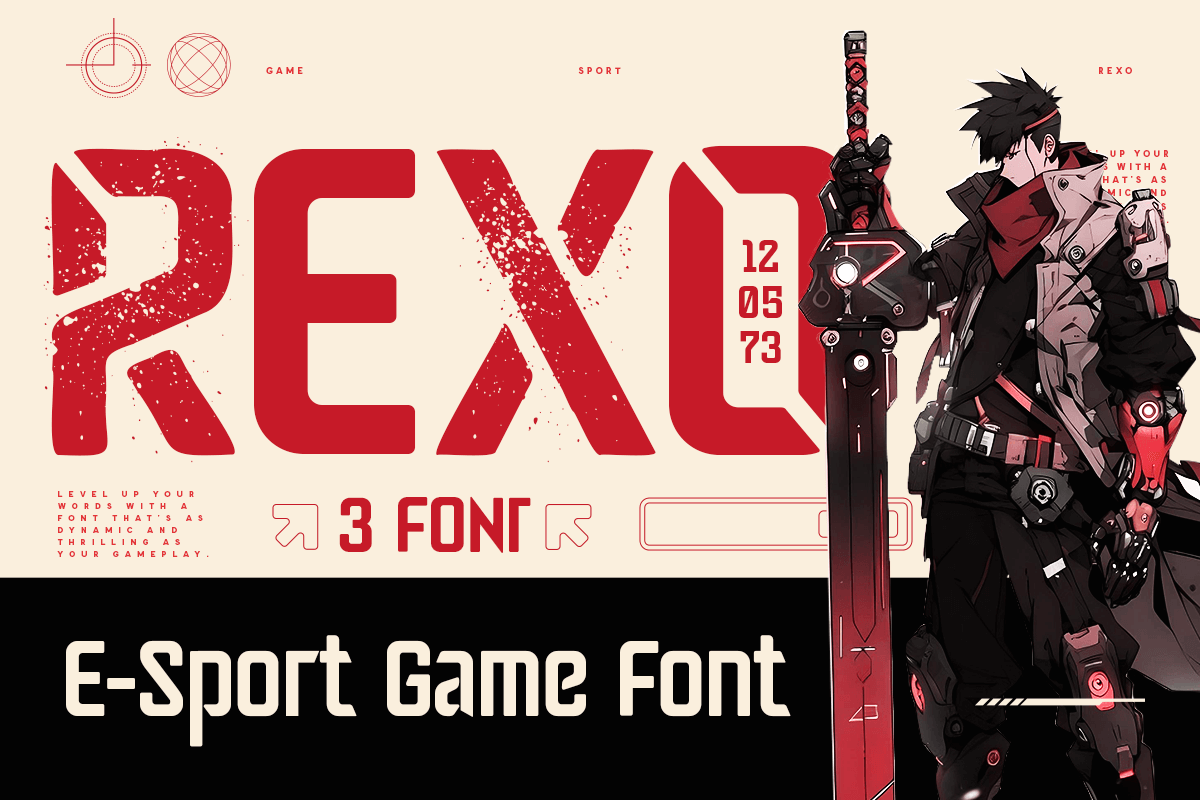
Rexo
-Esport Gaming Font
Rexo is a cutting-edge font crafted specifically for the gaming and esports world. Designed with bold, dynamic elements, it captures the high-energy essence of competitive gaming and helps your brand stand out in a crowded market. Whether for team logos, game titles, or streaming graphics, Rexo delivers a powerful visual impact.
Inspired by the fast-paced nature of esports, Rexo combines modern design with unique character traits to create a font that's both eye-catching and functional. Its distinctive style ensures that your brand will make a memorable impression, while its versatile features offer endless possibilities for creative applications.
Ideal for any esports or gaming project, Rexo supports multiple languages and includes all the essential characters for a complete design solution. With its opentype features and comprehensive character set, it provides the flexibility and style needed to elevate your gaming brand to new heights.